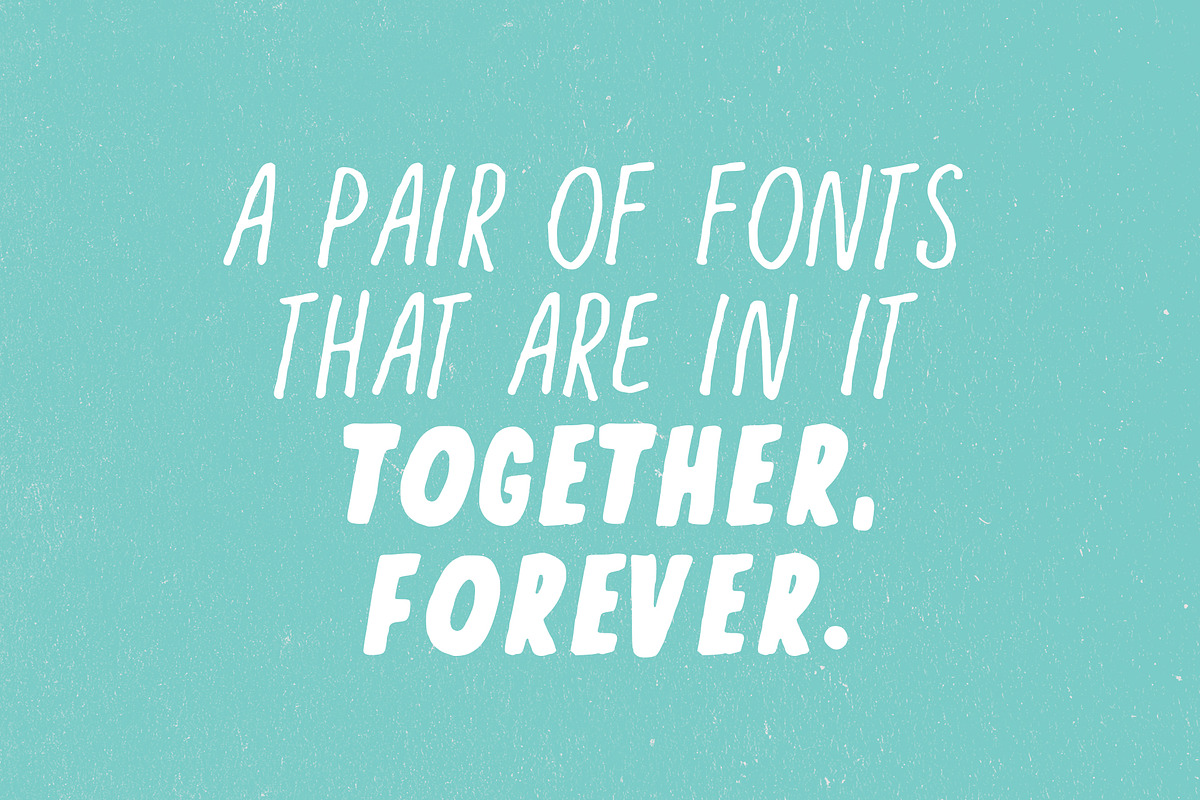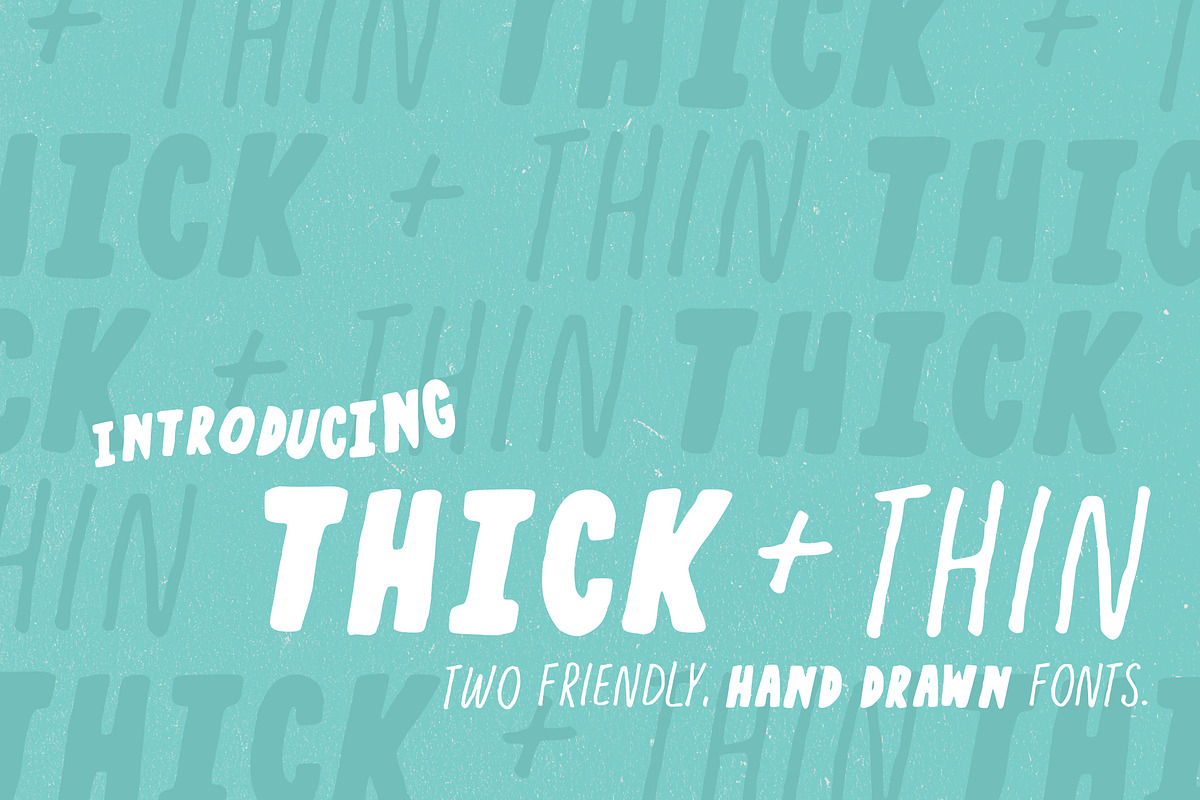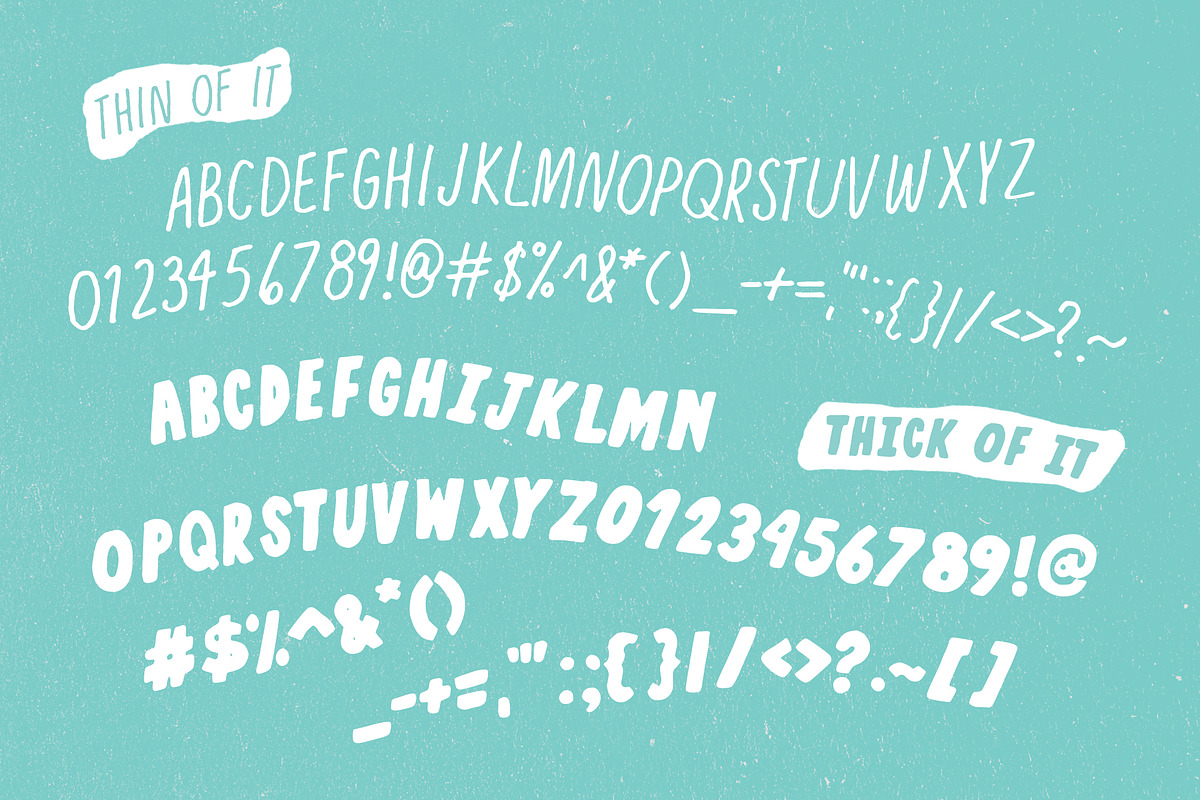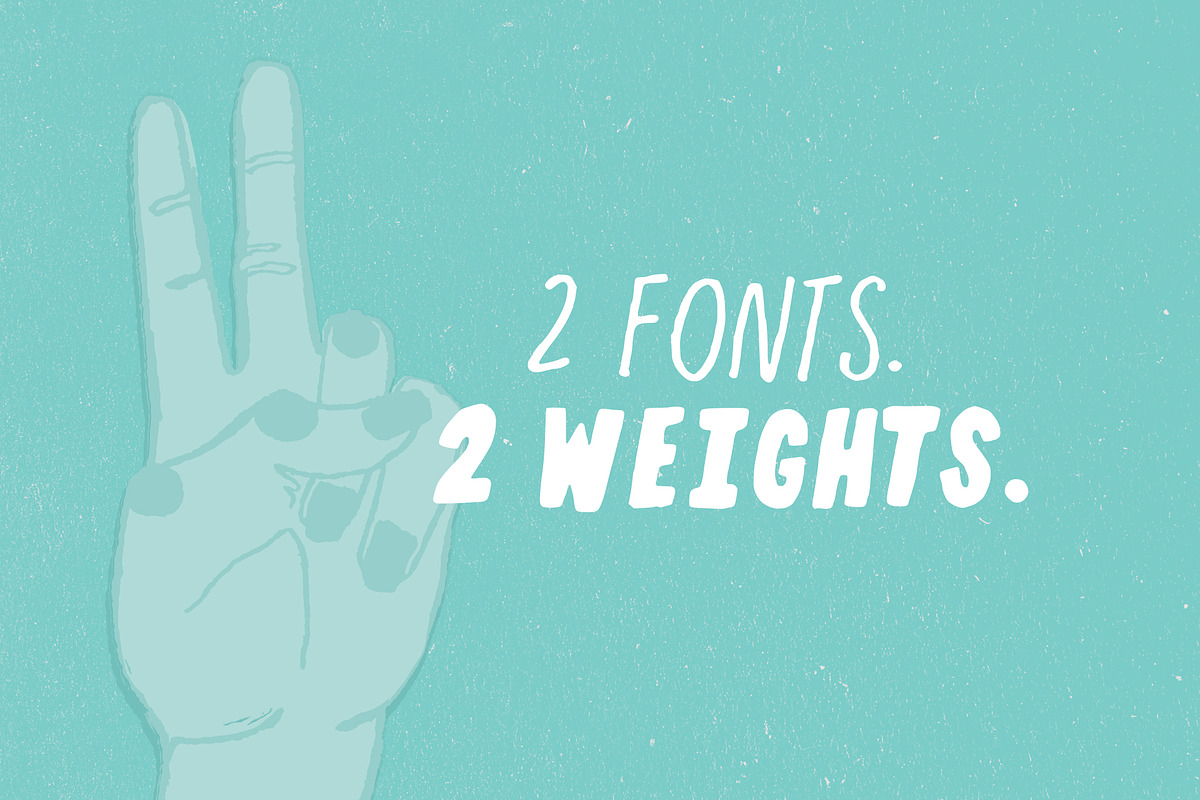
Thick + Thin Font
Thick + Thin Font by Mystik Vision is a font selected for branding, posters, packaging, typography.
- These friendly, imperfect characters compliment each other, because they're nice like that.
- Thick + Thin are two uppercase, slightly slanted fonts that work together (or separate) to make your posters, greeting cards, book covers, a
Why Thick + Thin Font is worth a look
Thick + Thin Font by Mystik Vision fits naturally into Branding, posters, packaging, typography.